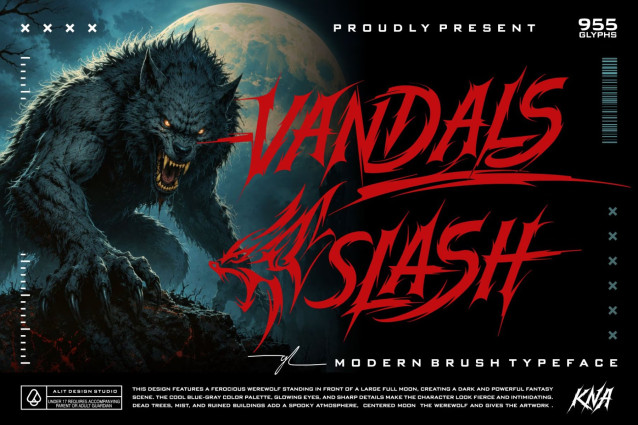
Vandals Slash – Modern Aggressive Brush Typeface
Unleash raw energy and fierce creativity with Vandals Slash, a modern brush typeface designed to make a massive impact. Featuring sharp, aggressive strokes and a dynamic hand-drawn feel, this font is perfectly suited for projects that demand a bold, unapologetic, and powerful presence.
Whether you are designing for a dark fantasy game, an edgy streetwear brand, a heavy metal album cover, or a thrilling horror movie poster, Vandals Slash delivers an intense, gothic, and rebellious aesthetic. The meticulously crafted letterforms guarantee that your typography will stand out with a striking, custom look.
Endless Customization with 955 Glyphs:
Vandals Slash is an absolute powerhouse, packed with a staggering 955 glyphs to give you unparalleled creative freedom. It features a vast collection of Alternates (Stylistic Sets 01 through 09), custom Ligatures, and expressive Swashes. Mix and match these characters to create unique typography that looks like authentic, fierce hand-painted lettering.
Key Features:
- Standard Uppercase & Lowercase
- Numerals & Punctuation
- Extensive Alternates (SS01 – SS09)
- Custom Ligatures & Swashes
- Comprehensive Multilingual Support